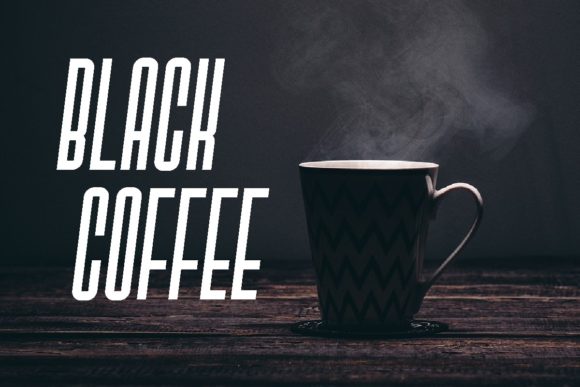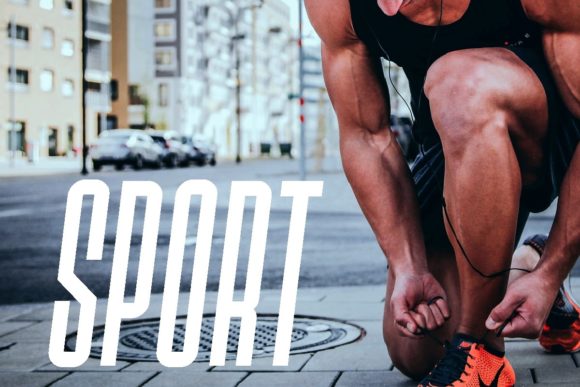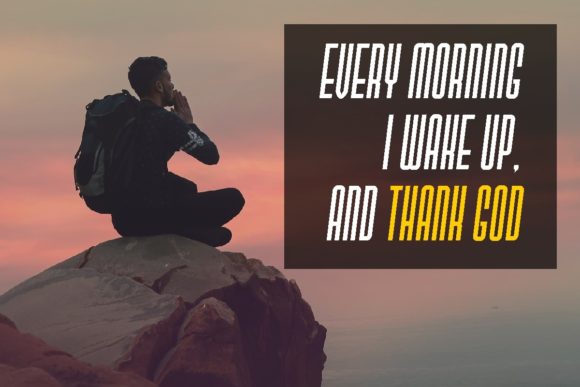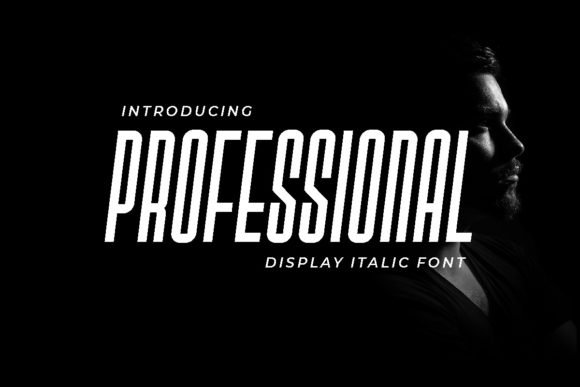
Introduction to Professional Italic Font
Professional italic is a cool, tall, and modern sans serif font.
It will look stunning on any poster, flyer, or print Use this font for your designs and explore its endless possibilities.
Key Features of Professional Italic Font
Why Choose Professional Italic Font?
Professional Italic Font offers exceptional quality and versatility, making it a valuable addition to your design toolkit. Whether you’re creating for personal projects or commercial use, Professional Italic Font delivers professional results.